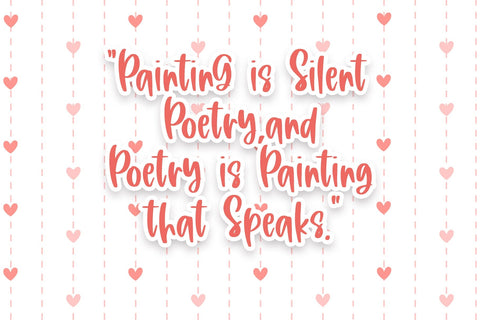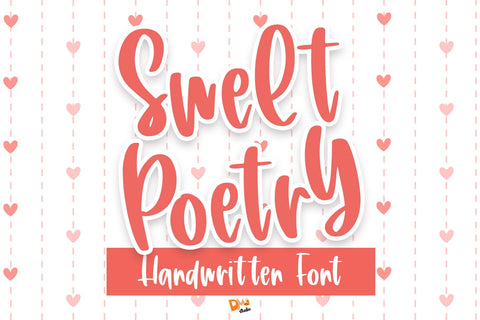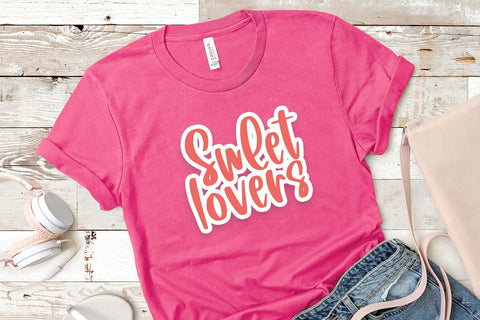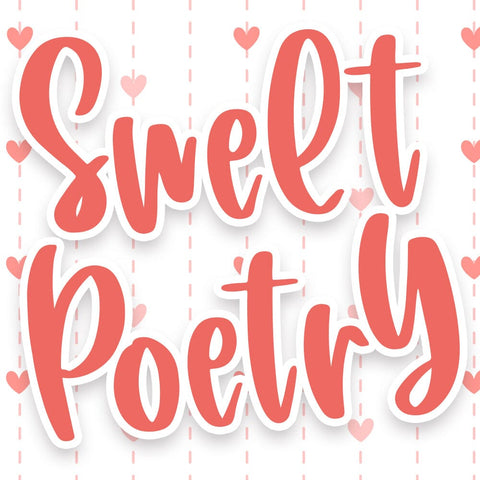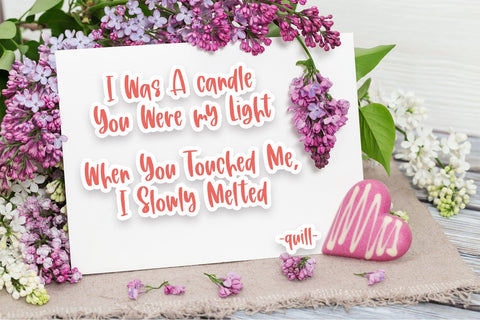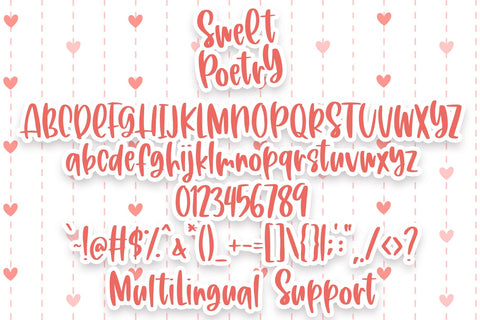
Sweet Poetry Font
Sweet Poetry Font is a graceful and elegant typeface that brings a touch of romance and sophistication to your design projects. With its fluid letterforms and delicate details, this font is perfect for wedding invitations, love letters, branding, and other projects that require a blend of sweetness and poise.
1. Elegantly Crafted Design: The Sweet Poetry Font features a meticulously crafted design that exudes elegance and charm. Its fluid strokes and graceful curves create a harmonious and visually appealing aesthetic.
Usage:
1. Wedding Invitations: Create enchanting wedding invitations with a touch of romantic sophistication using the Sweet Poetry Font.
2. Love Letters and Stationery: Craft heartfelt love letters and elegant stationery that reflect a blend of sweetness and timeless beauty.
3. Branding and Logo Design: Use the font to add a touch of class and refinement to your brand identity, logos, and promotional materials.
4. Social Media Graphics: Elevate your social media presence with elegant and visually appealing graphics using the Sweet Poetry Font.